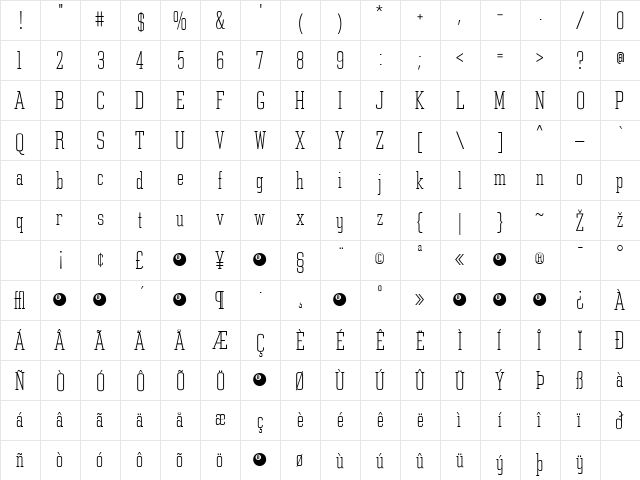
Constructa Regular
| Foundry | Elizabeth Cory Holzman, designer. Produced by The Font Bureau, Inc |
Design Context for Constructa Typeface
Constructa offers clean, dependable letterforms without strong stylistic allegiance, making it a practical choice for designers who need flexibility.